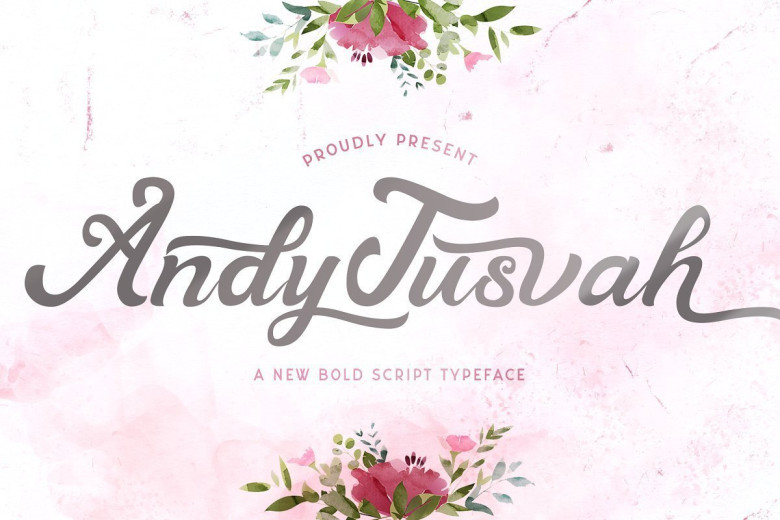
Andy Tusvah Bold Script Font
Introducing the latest styles Andy Tusvah Bold Script Font, A sweet calligraphy typeface, casual and dynamic with a dancing baseline, This font can be used easily and simply, perfect for Branding, Logos, Greeting Cards, Wedding Stationery, Quotes etc.